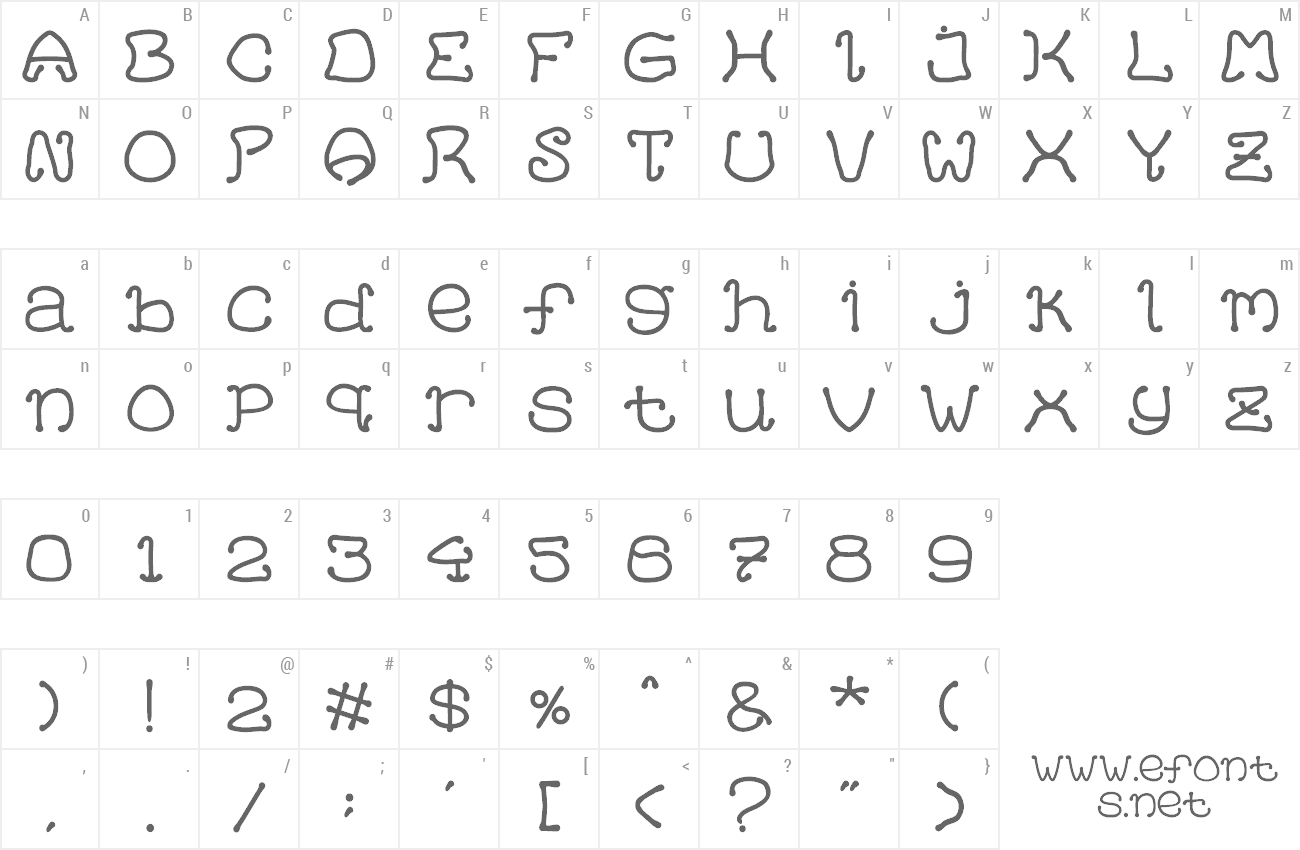
| Font name: | HelloCat |
| Author: | Fonta Benka |
| This unique font special for pet lover and everybody love cute things and it can be using for cartoon,kids funny invitation card. For license please email : awaridesign@yahoo.com :: Thank you to interest my fonts, Have a Nice Day ! |